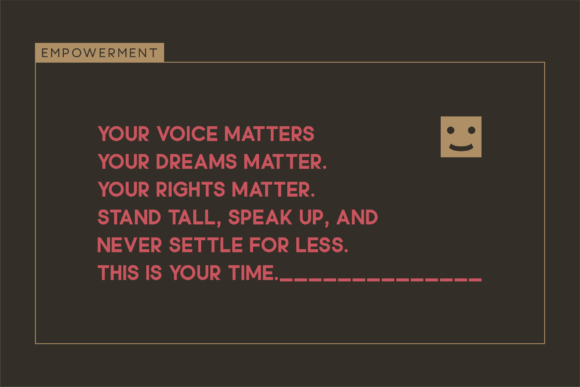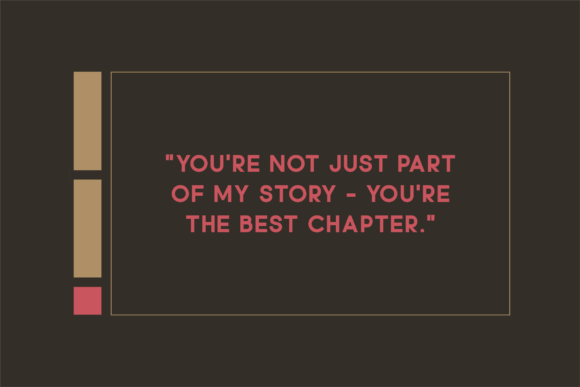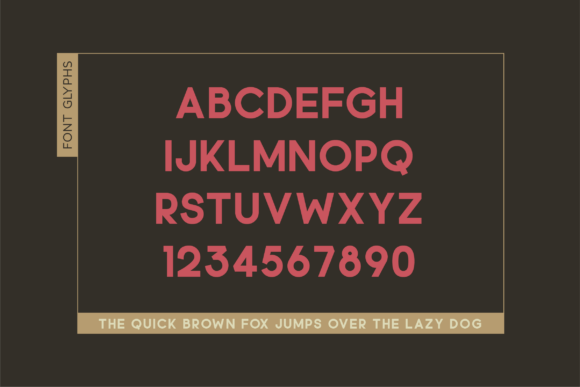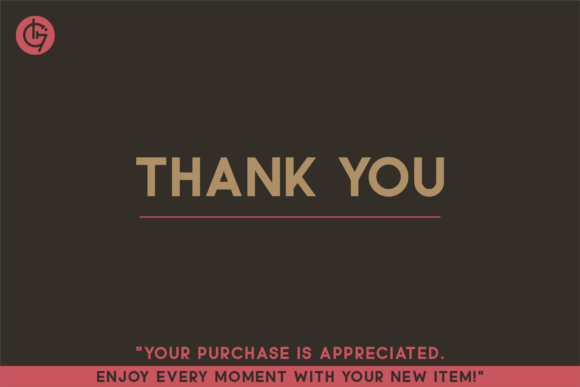
Introduction to Legoon Font
As a designer, have you ever been stuck on the perfect font for your creative project? The one that screams professionalism, yet whispers elegance? I know I have. But what if I told you that the search is over? Enter Legoon Font – a modern sans serif typeface designed to elevate your designs and leave a lasting impression.
Legoon Font is more than just a typeface – it’s a statement piece that commands attention. With its bold, all-caps design and clean lines, this font is perfect for making a splash in your branding, logos, and digital design. Whether you’re working on a high-end project or a simple website, Legoon Font is the perfect design resource to take your work to the next level.
Key Features of Legoon Font
- Designed with precision, resulting in a high-resolution font suitable for print and digital applications.
- Perfect for designers and artists looking for a high-quality, free font that adds a touch of sophistication to their work.
- Legoon Font is a versatile design resource that can be used in a variety of creative projects, from branding and marketing materials to digital art and graphics.
Honest Review: Legoon Font
As a designer, I’m always on the lookout for high-quality design resources to elevate my creative projects. Recently, I came across the Legoon Font, which caught my attention with its modern and sleek aesthetic.
- High-quality design: The Legoon Font boasts a crisp and clean design that’s perfect for modern branding and packaging.
- Limited font styles: While the Legoon Font is modern and sleek, it’s limited in terms of font styles, which may not be suitable for all design projects.
- Not ideal for complex text: Due to its simplicity, the Legoon Font may not be the best choice for complex text or intricate designs.
Overall, I’m impressed with the Legoon Font’s high-quality design and ease of use. While it may have some limitations, it’s an excellent resource for designers looking for a modern and sleek font for their creative projects. Whether you’re working on a branding project or packaging design, the Legoon Font is definitely worth checking out.